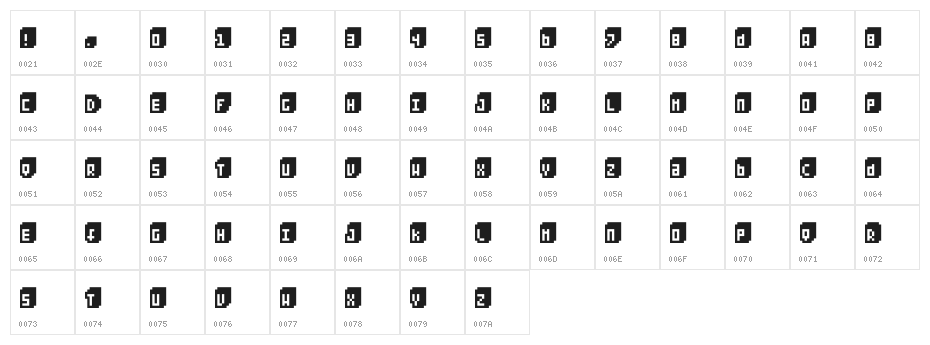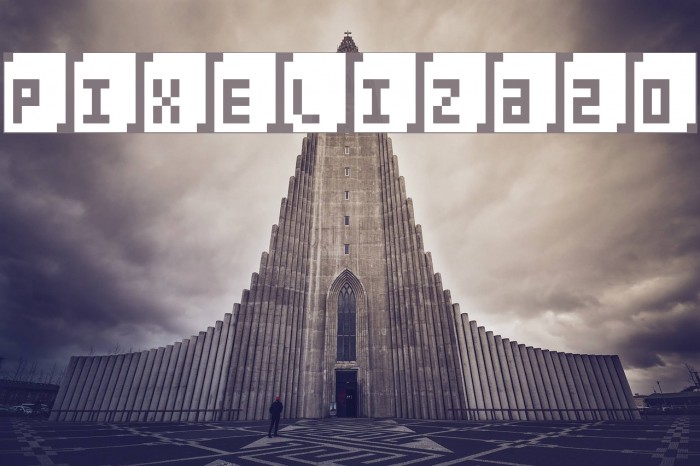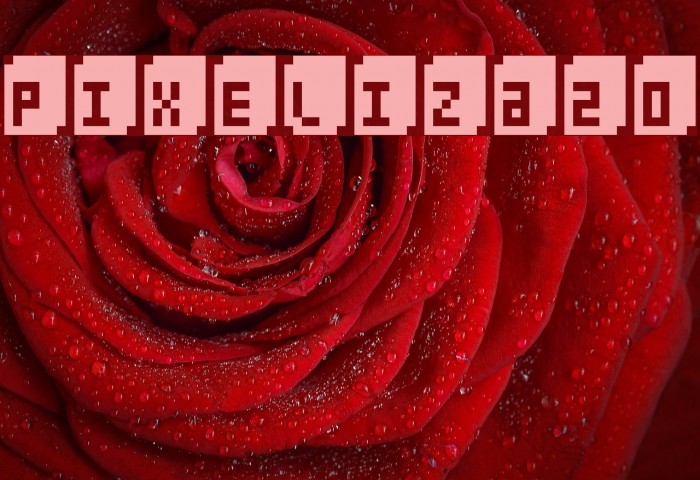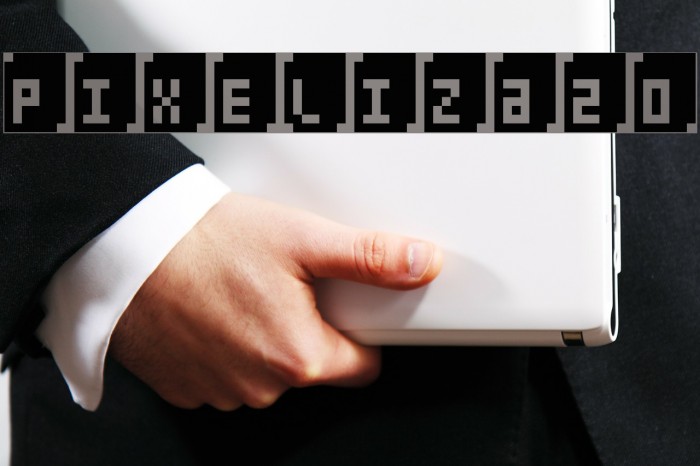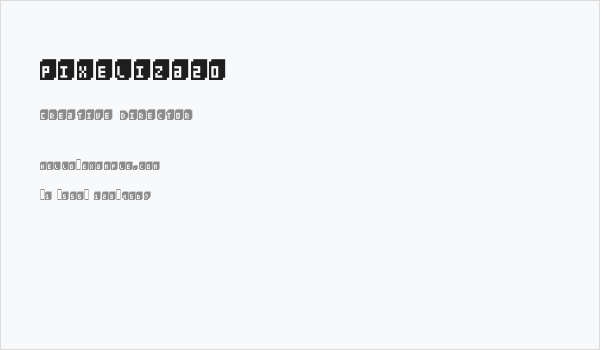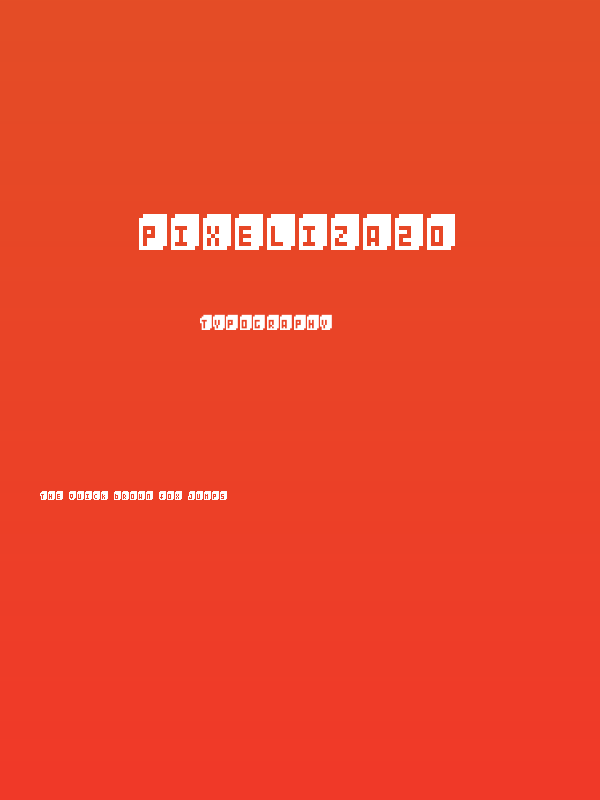
Pixeliza20 Font
Pixeliza20 Description
This font exhibits a bold, pixelated style reminiscent of classic 8-bit video games. Each character is composed of square, block-like shapes, creating a digital, retro aesthetic. The uniformity in the design gives it a cohesive look, with each letter and number maintaining a consistent height and width. The font is highly legible, with clear distinctions between characters, making it suitable for digital displays or projects that require a nostalgic, gaming-inspired feel. The special characters follow the same pixelated design, ensuring a seamless integration with the rest of the character set.
| Overall Style | Retro |
| Use Case | Headlines, Logos, Digital displays |
| Proposed Projects | Ideal for video game design, retro-themed posters, digital art projects, and any creative work that seeks to evoke a sense of nostalgia. |